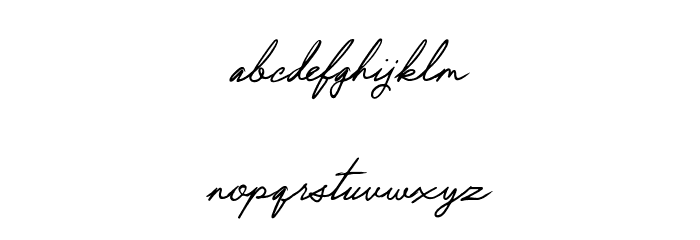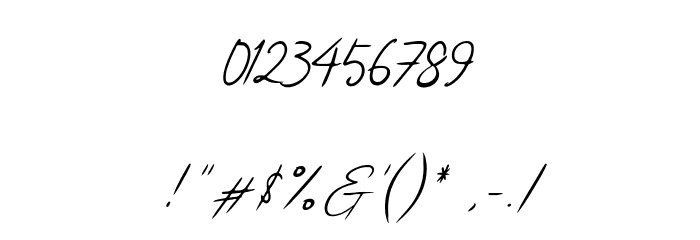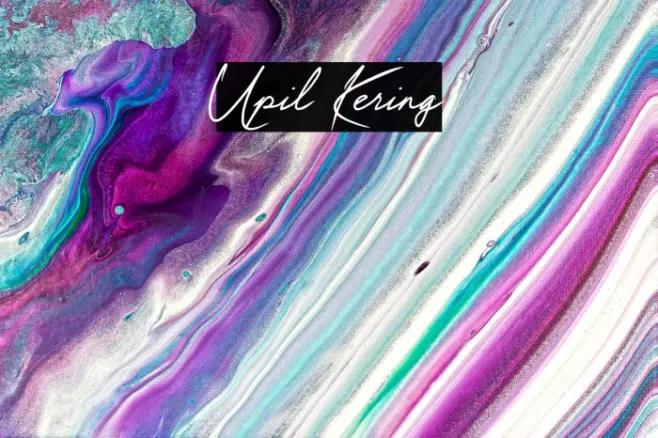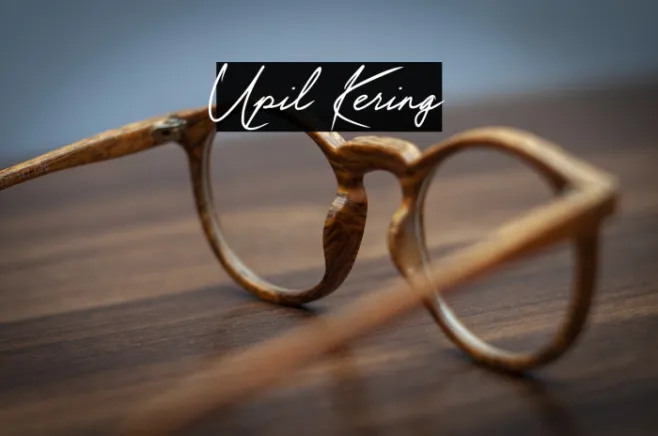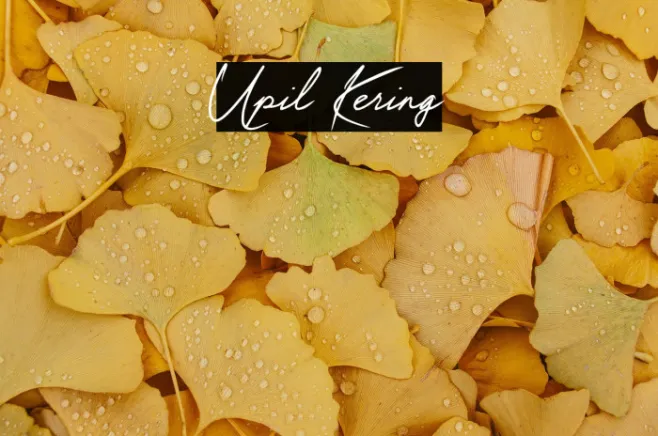
Upil Kering Font
This font exhibits a dynamic and fluid handwritten style, characterized by its elegant and flowing script. The uppercase letters are particularly expressive, with sweeping curves and varying stroke widths that give a sense of motion and grace. The lowercase letters maintain a consistent style, offering a more subdued yet equally stylish appearance. Numbers and special characters are crafted with the same attention to detail, ensuring a cohesive look across all elements. The overall design is reminiscent of a personal signature, making it ideal for projects that require a personal touch or a sense of sophistication.
A dynamic and fluid handwritten script with elegant, flowing strokes.
- Proposed Projects: Ideal for wedding invitations, personal branding, greeting cards, and elegant packaging.
- Overall Style: Elegant, Handwritten
- Use Case: Logos, Invitations, Personal Branding